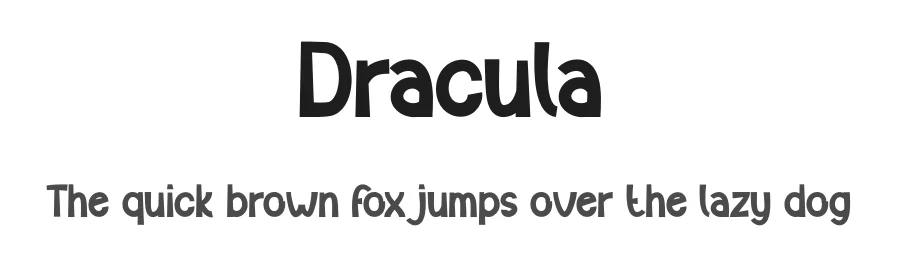
About Cherry Ai Font
Cherry Ai is a decorative font designed by Aisyah. It includes 98 glyphs, a regular weight, TTF (TrueType) format, and 104 languages. Cherry Ai is free to download; check the license details on this page before commercial use. Decorative fonts like Cherry Ai work best for logos, posters, packaging, and standout headlines.
Cherry Ai Font is a decorative font that shines as a display or heading face. Pair it with a clean sans-serif or serif font for body text β the contrast creates a clear hierarchy while the two styles stay balanced and easy to read.
Cherry Ai Font
by Aisyah